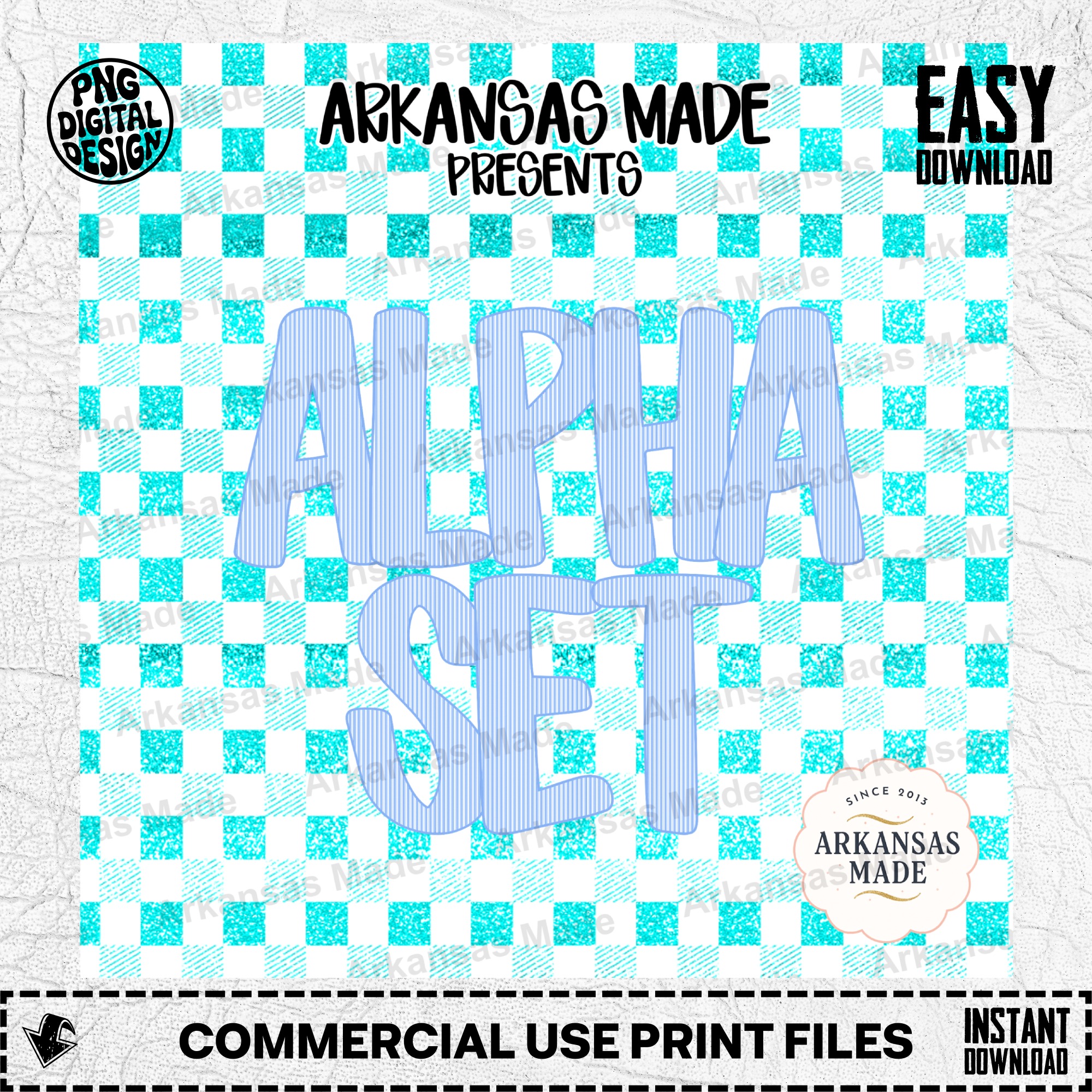
Striped Blue Alpha Set PNGs, Digital Alphabet Letters, Cute Light Blue Monogram Font, Crafting & Sublimation Alpha PNG Bundle
Unlock endless creativity with this charming Striped Blue Alpha Set PNGs! Perfect digital alphabet letters for all your crafting projects and personalized designs. This cute light blue letter bundle features a faux 3D puffed effect and printed striped texture, ideal for adding a playful yet classic touch to sublimation items, tumblers, shirts, and nursery decor. Crafters, DIY enthusiasts, and small business owners will adore this versatile digital download, perfect for creating unique gifts for baby showers, birthdays, or any special occasion.